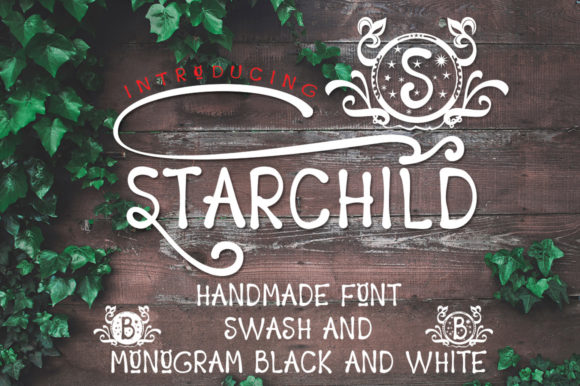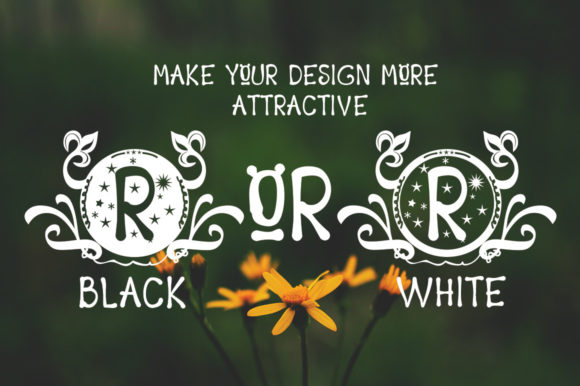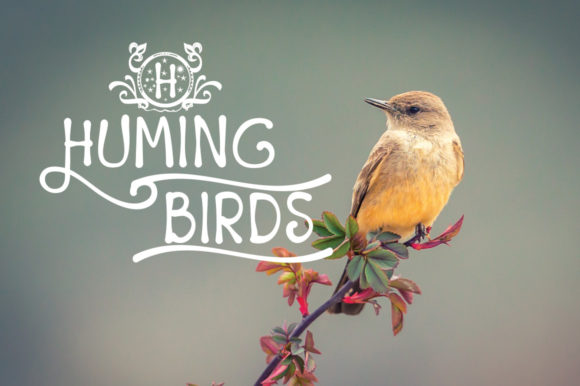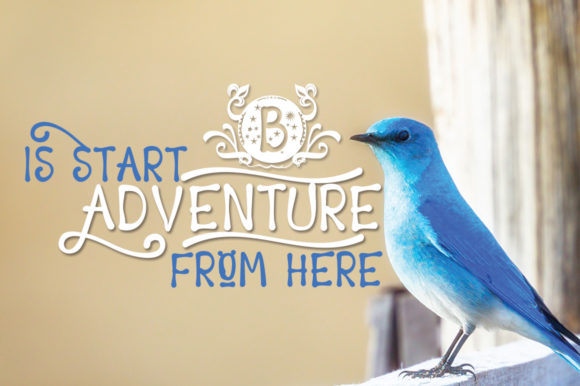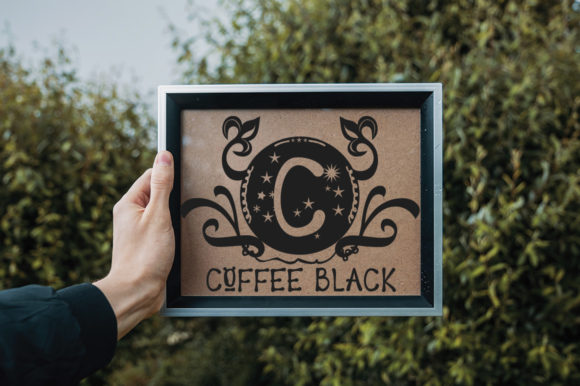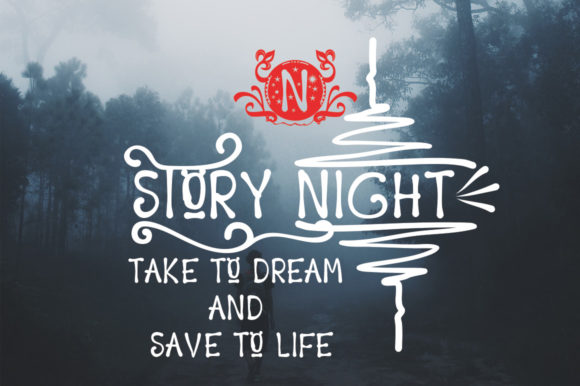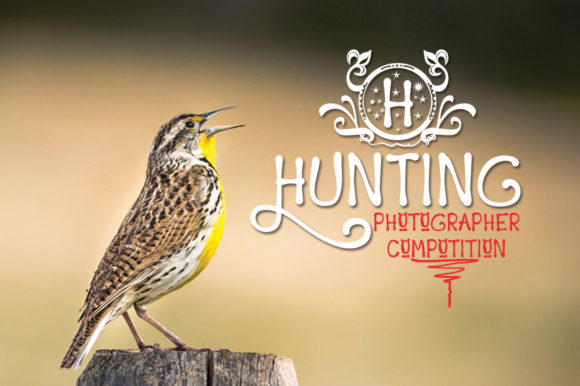
Starchild Font
About Starchild Font
Introducing The Starchild, a truly unique font that stands out with its striking style and distinctive character. This font is not just a typographic choice; it’s a design statement that adds a touch of individuality to your creative projects. What sets The Starchild apart is its ability to infuse your designs with a captivating aesthetic, coupled with the inclusion of amazing monograms that provide that extra dash of flair.
The Starchild font is a testament to creativity and originality. Its striking style makes it an ideal choice for projects where you want to make a bold and memorable impact. The font goes beyond traditional typefaces, offering a design element that elevates your work and captures attention.
A standout feature of The Starchild is the inclusion of amazing monograms. These monograms serve as exquisite embellishments, providing an extra layer of sophistication and personalization to your designs. Whether you’re working on branding materials, invitations, or any creative project, The Starchild’s monograms add a unique and elegant touch.
This font is versatile, adapting seamlessly to a variety of design contexts. Whether you’re crafting logos, headers, or decorative elements, The Starchild brings a touch of uniqueness that sets your work apart. It’s perfect for those who appreciate the value of originality and want to make a lasting impression.
In summary, The Starchild is not just a font; it’s a design asset that brings a striking style and amazing monograms to your creative toolkit. Elevate your designs with this unique font, and let its individuality shine through in your branding, invitations, and various other projects. Embrace the distinct charm of The Starchild and add that extra bit of flair to your designs.